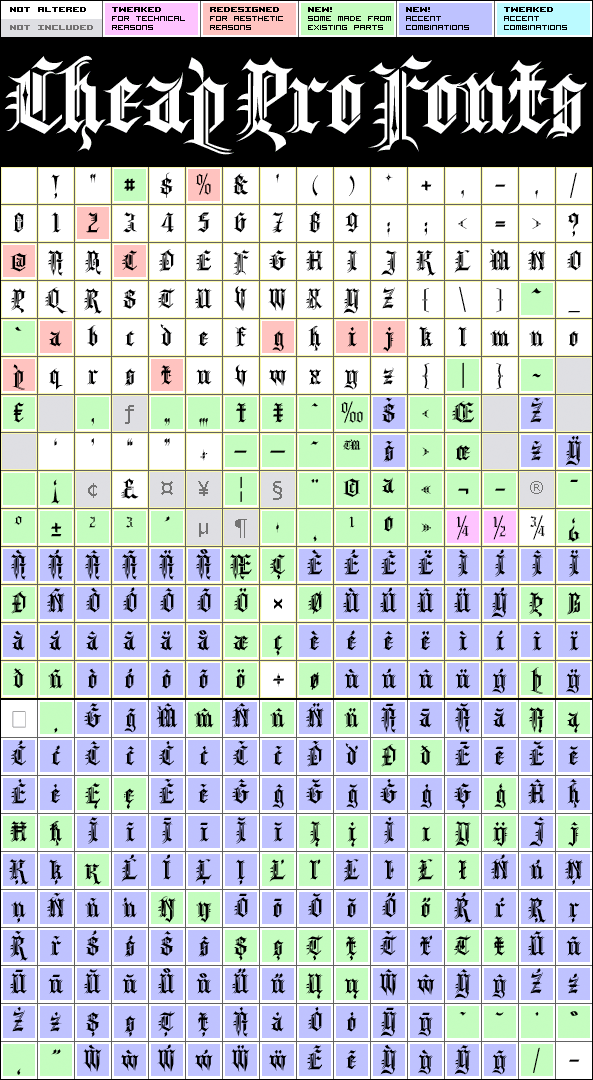
A toned down version of Kingthings Spike... Kevin King says: "Kingthings Spikeless was requested by those who actually want to read text... well I call that tedious, but if you must, here it is no flourishes, just my small homage to black-letter."
Kingthings Spikeless Pro is a professionally reworked font that contains an extended character set for setting text in 65 languages requiring more than the basic A-Z!